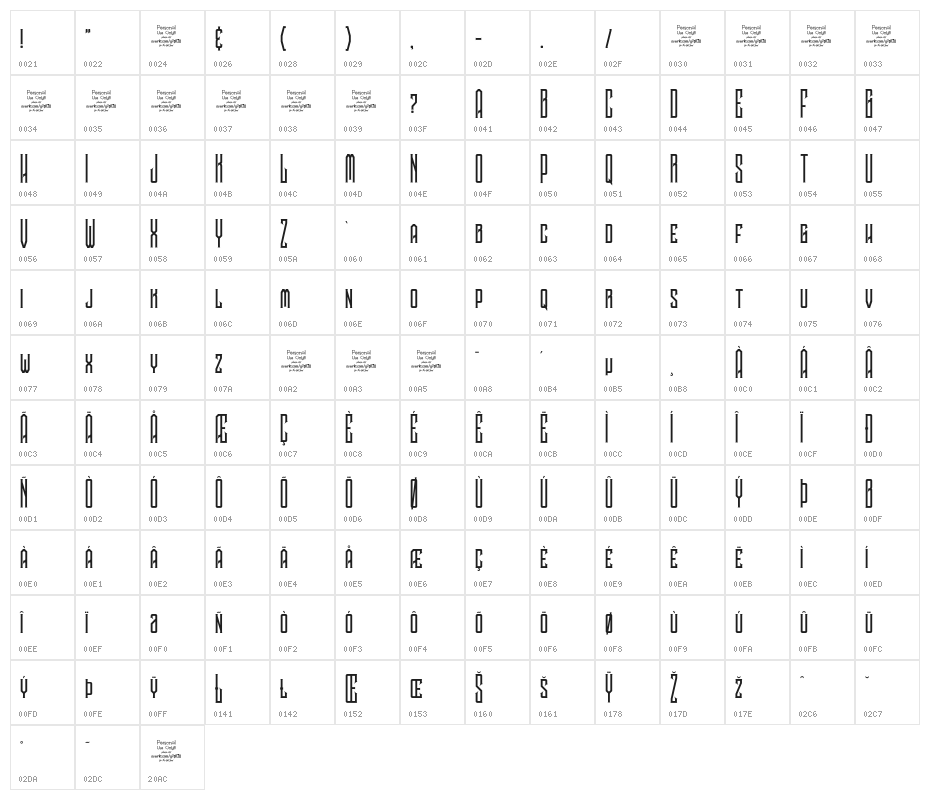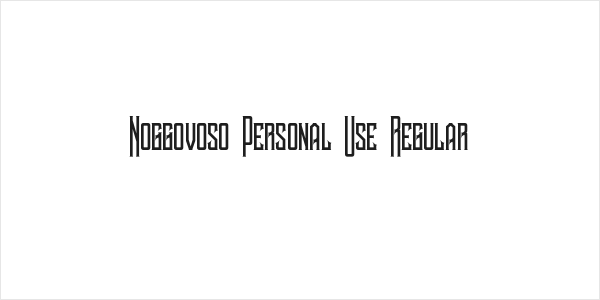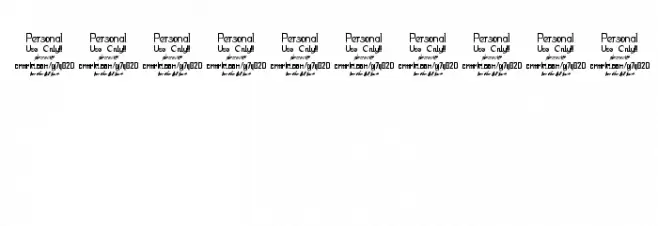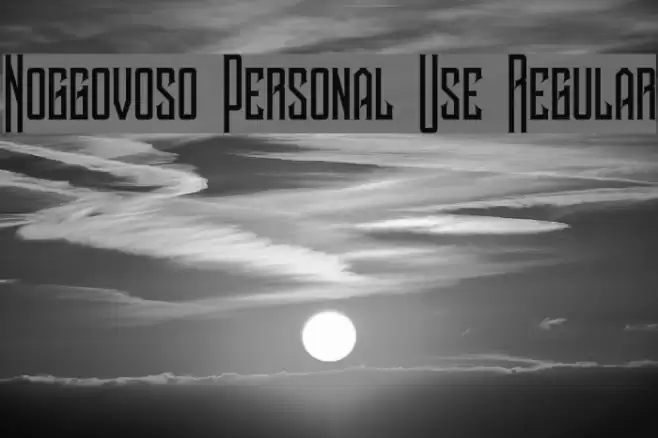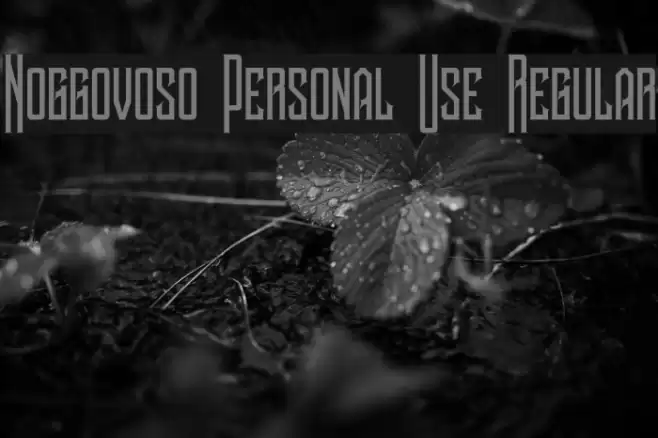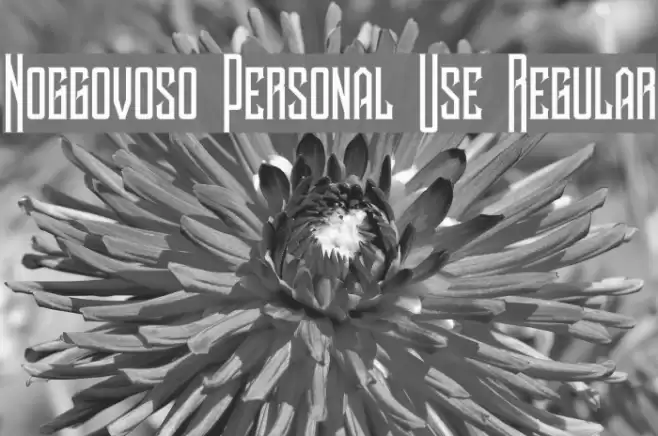
Noggovoso Personal Use Regular Font
✎ Art Deco
This font features a bold and striking design with sharp, angular edges and a tall, narrow structure. The uppercase letters are particularly elongated, giving a sense of height and prominence. The geometric style is reminiscent of Art Deco influences, with a modern twist that makes it suitable for contemporary designs. The characters are tightly spaced, enhancing the compact and cohesive appearance. This font is ideal for making a strong visual impact, especially in titles or headlines where readability is key. The unique style of the letters adds a distinctive flair, making it suitable for branding or creative projects that require a bold statement.
| Proposed Projects | Ideal for branding, posters, album covers, and any project requiring a bold, modern statement. |